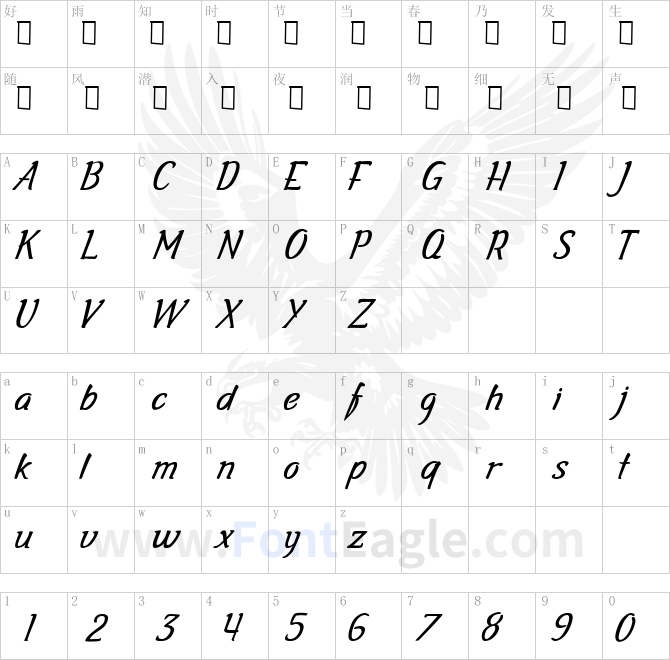
- Font name:Gala Script
GalaScript is a great font, widely used in graphic design, single-page menu design, poster design and other fields, and is deeply loved by designers.GalaScript download.